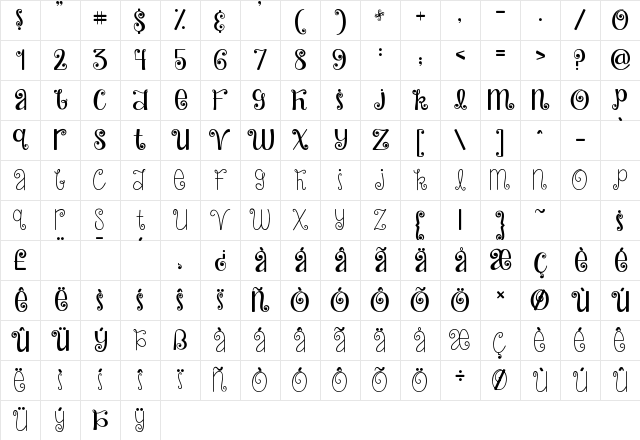
Complete Janda Hide And Seek Regular glyph index. Displaying only characters natively supported by Janda Hide And Seek Regular font.
Janda Hide And Seek is a composed and adaptable typeface that performs quietly and consistently across a wide range of design contexts.